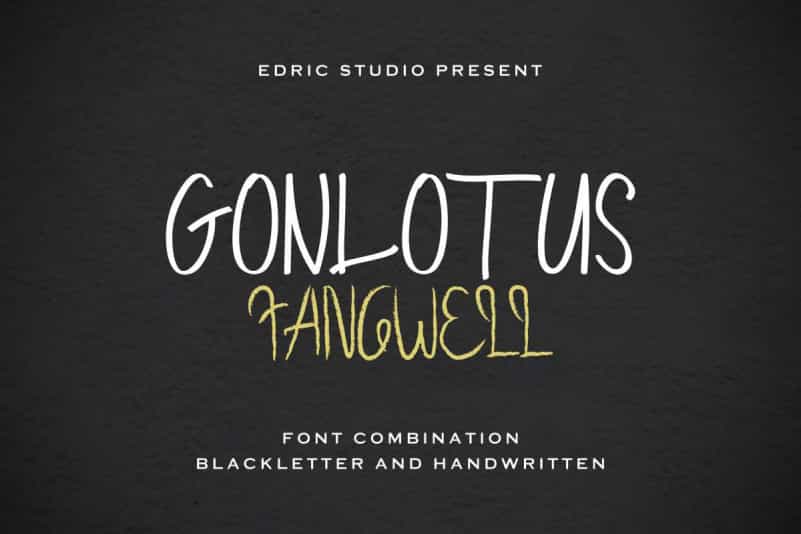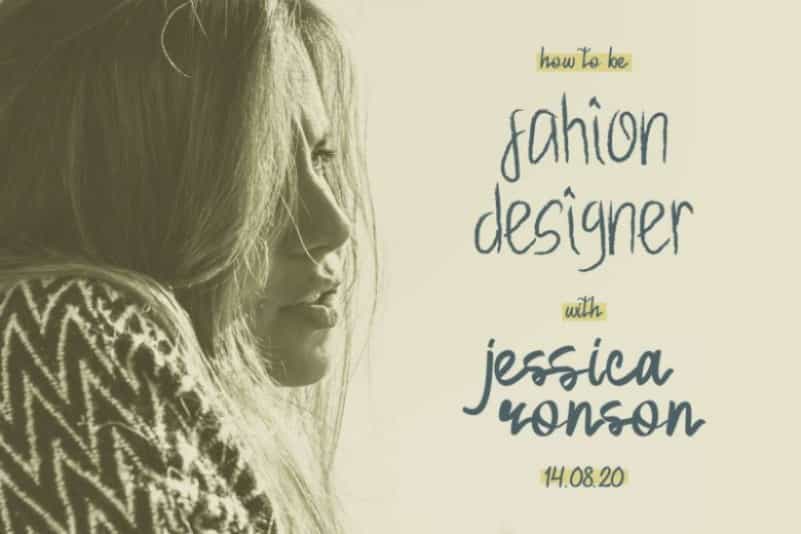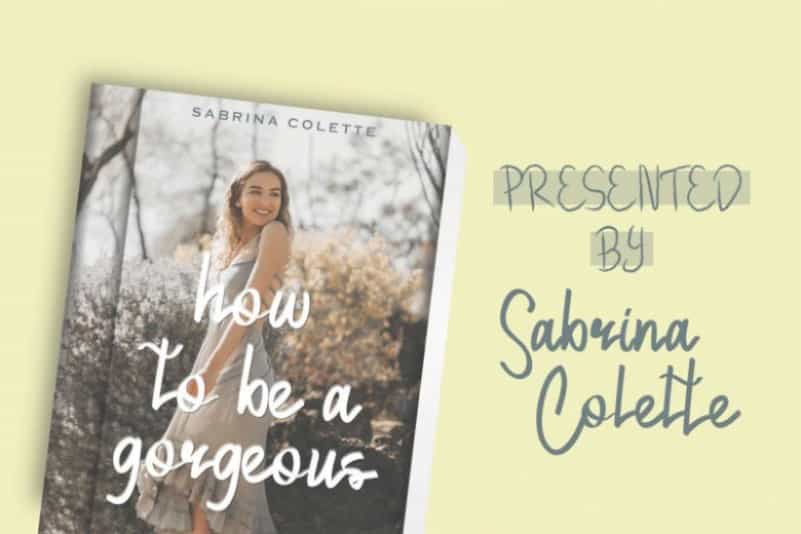
Gonlotus Fangwell is a lovely font duo that puts together two fonts, Brush and Handwritten in one nice package. This font duo is ideal for designing your own logo. This font is a great fit for cute logos, cover, magazine, sticker, flyer, cards and many other designs.